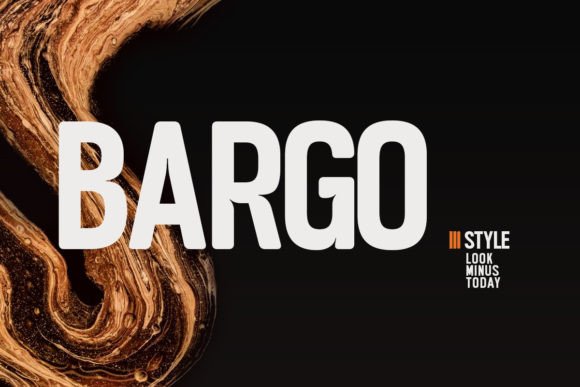
Journey into the realm of captivating typography with Bargo, a masterpiece of a font family designed to redefine your artistic expressions. Crafted by the visionary minds at LOOK MINUS TODAY, this versatile sans serif font is an amalgamation of three distinct styles, each carrying its own unique charm and purpose.
Regular: A bold and commanding presence, Regular exudes a masculine and modern aura. Its clean lines and sharp edges lend a touch of sophistication to your designs, making it ideal for headlines, posters, and branding elements that demand attention.
Round: Embrace the allure of elegance and playfulness with Round. Its alluring curves and subtle details bestow a contemporary flair to your creations. Unleash its potential in logos, invitations, and social media graphics, where a touch of whimsy is desired.
Edged: Step into the future with Edged, a font that embodies the essence of innovation and progress. Its futuristic shape and angled edges command attention, making it a perfect choice for designs that seek to break boundaries. Experiment with it in posters, flyers, and digital marketing materials that aim to leave a lasting impression.
United by their shared versatility, the Bargo family is a treasure trove of possibilities. Dive into the world of editorial design and bring your manuscripts and articles to life with its captivating forms. Craft stunning packaging designs that tell a story and create an unbreakable bond with your customers. Whether you're creating logos, advertisements, or digital media content, Bargo's adaptability knows no bounds.
Embrace the power of Bargo and embark on a creative journey like never before. Let your designs speak volumes, captivating audiences with its timeless beauty. Experience the joy of seamless integration across various mediums, from print to digital, and witness your ideas flourish into extraordinary realities.